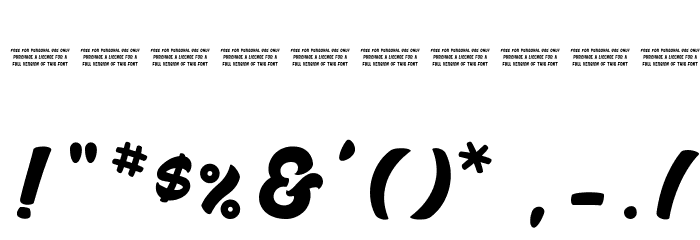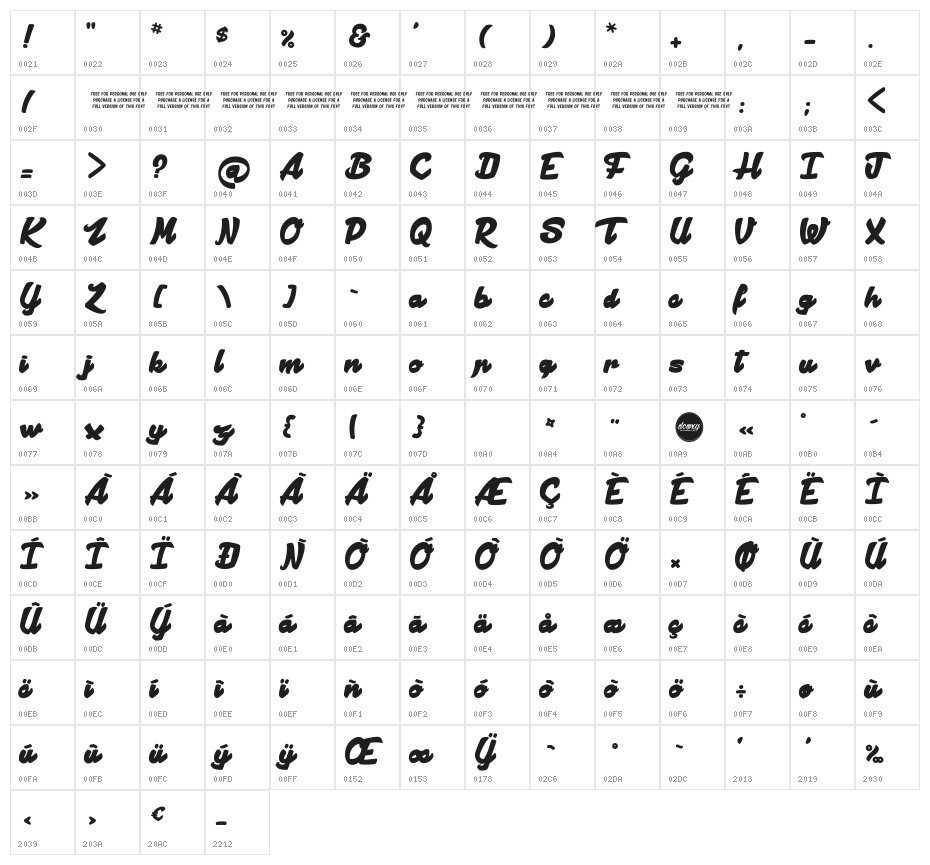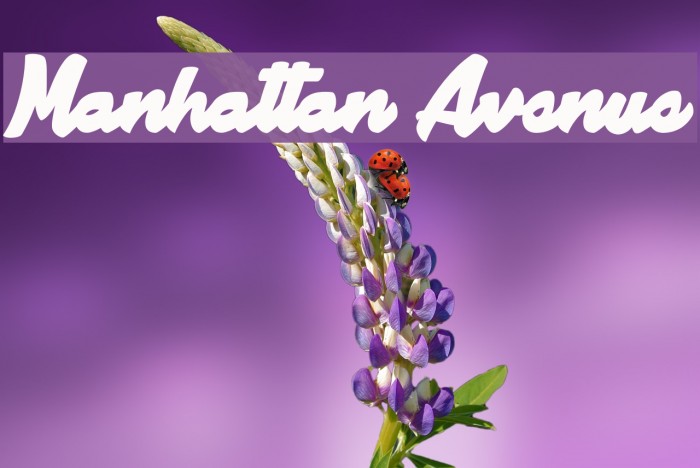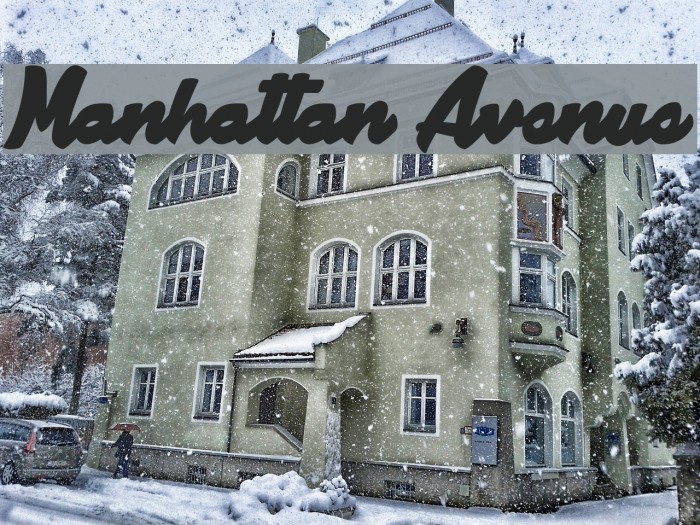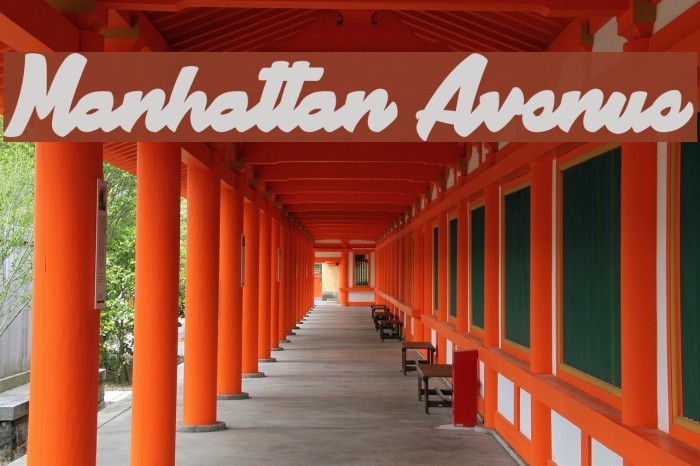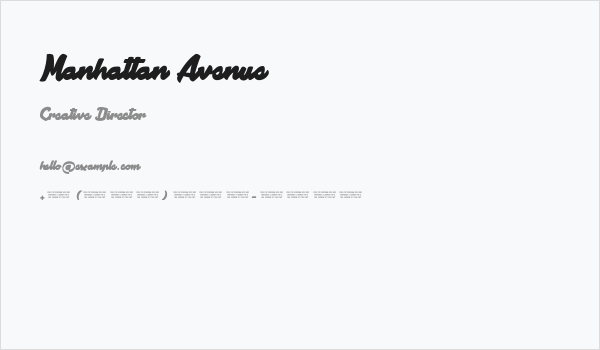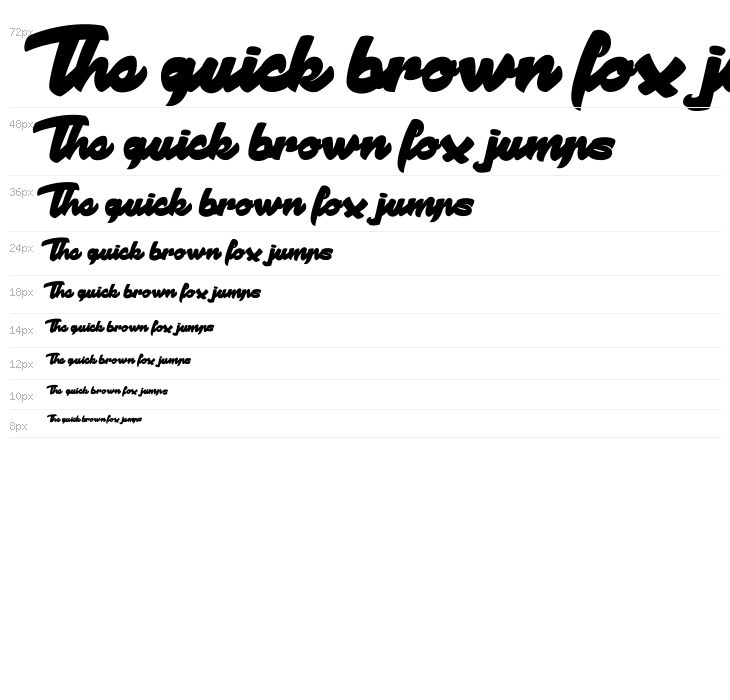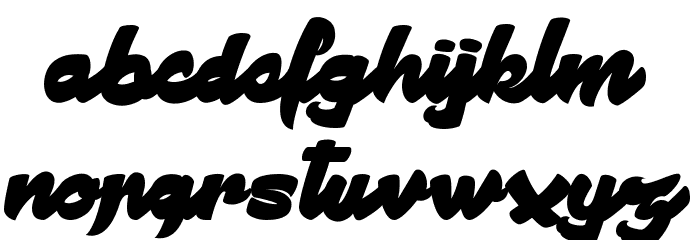
Manhattan Avenue Font
Manhattan Avenue Description
This font features a bold and dynamic script style with a strong presence. The characters are interconnected, giving it a fluid and continuous appearance. The uppercase letters are slightly larger and more pronounced, while the lowercase letters maintain a consistent flow. The font includes a full set of numerals and a variety of punctuation marks, each maintaining the same bold and expressive style. The overall look is modern and energetic, making it suitable for projects that require a touch of flair and personality.